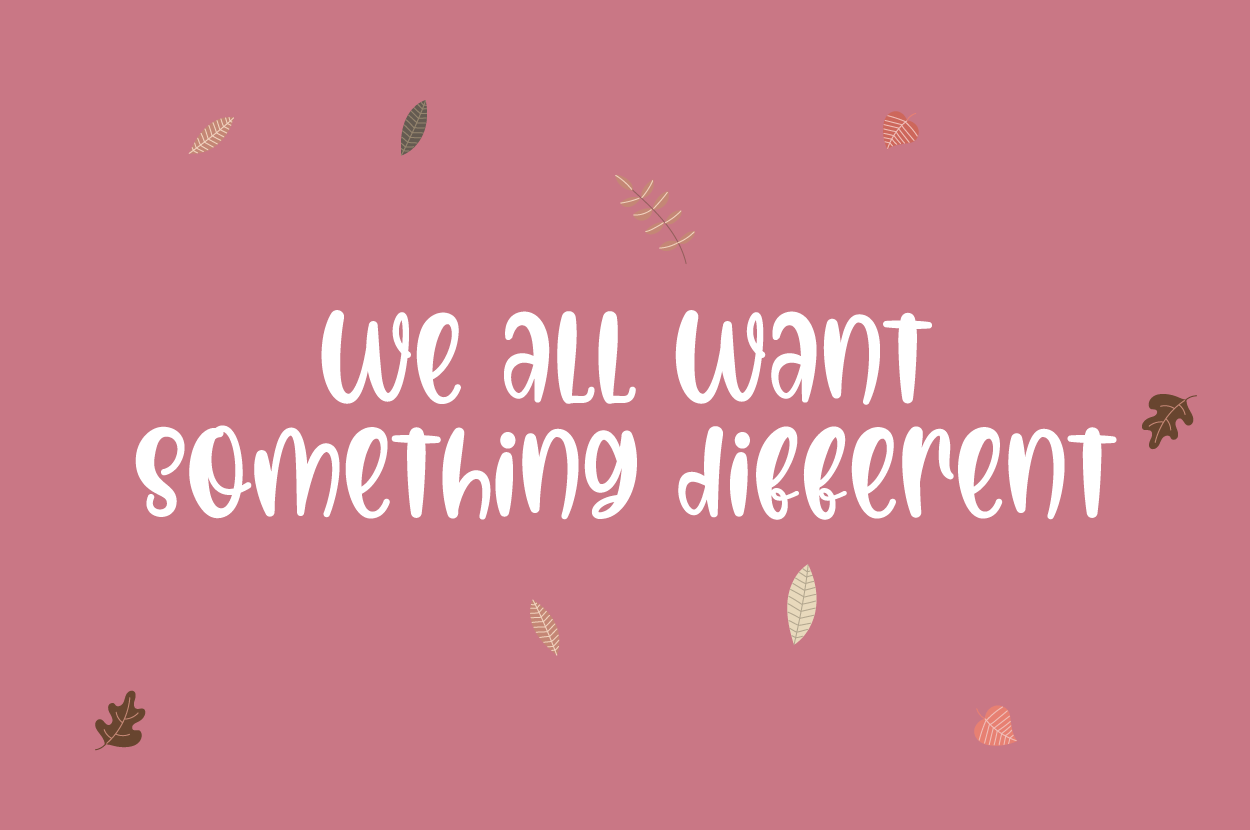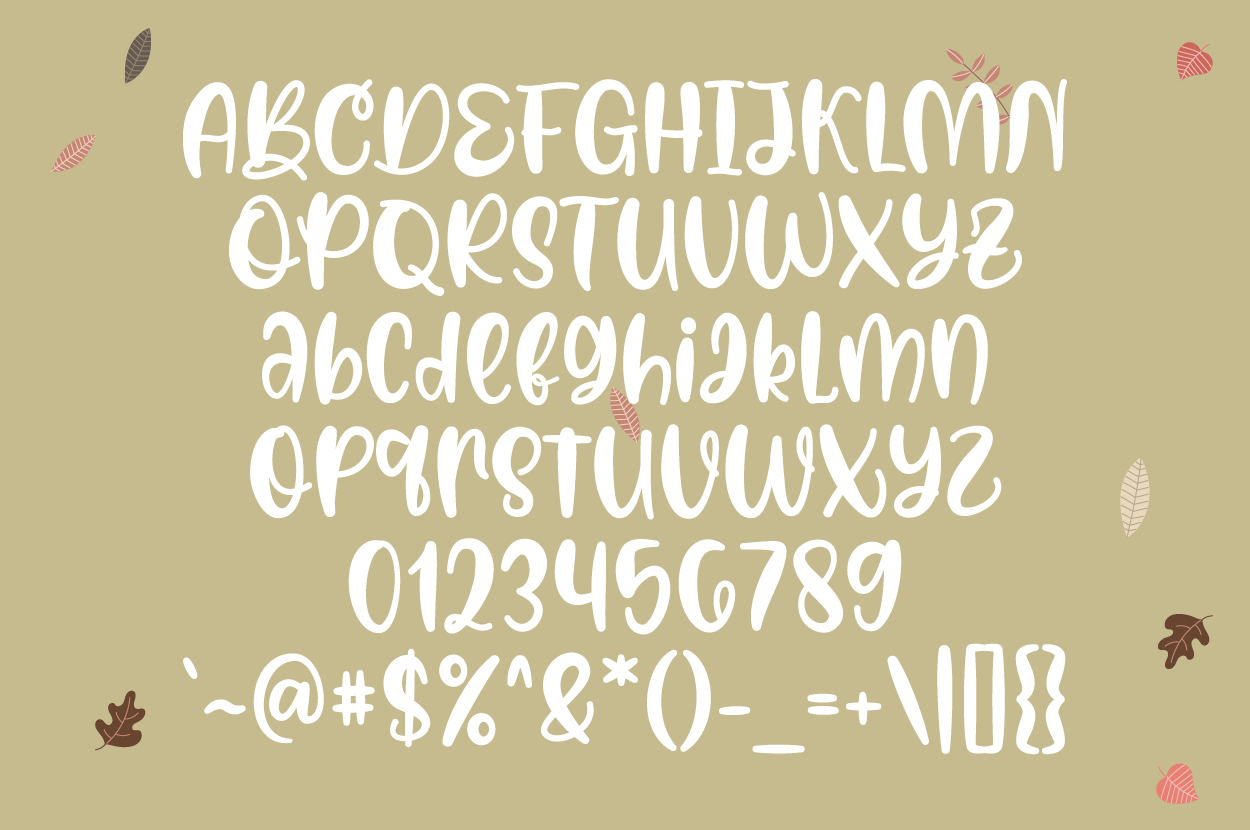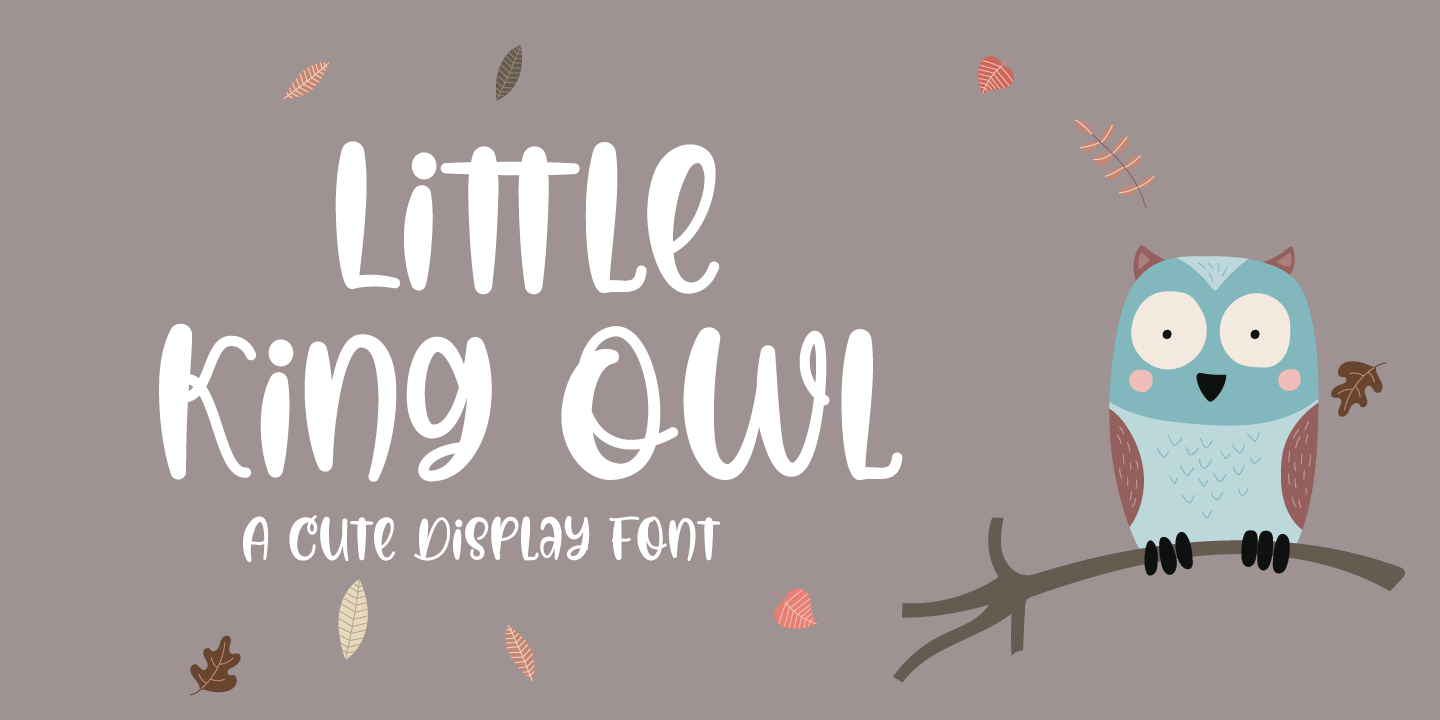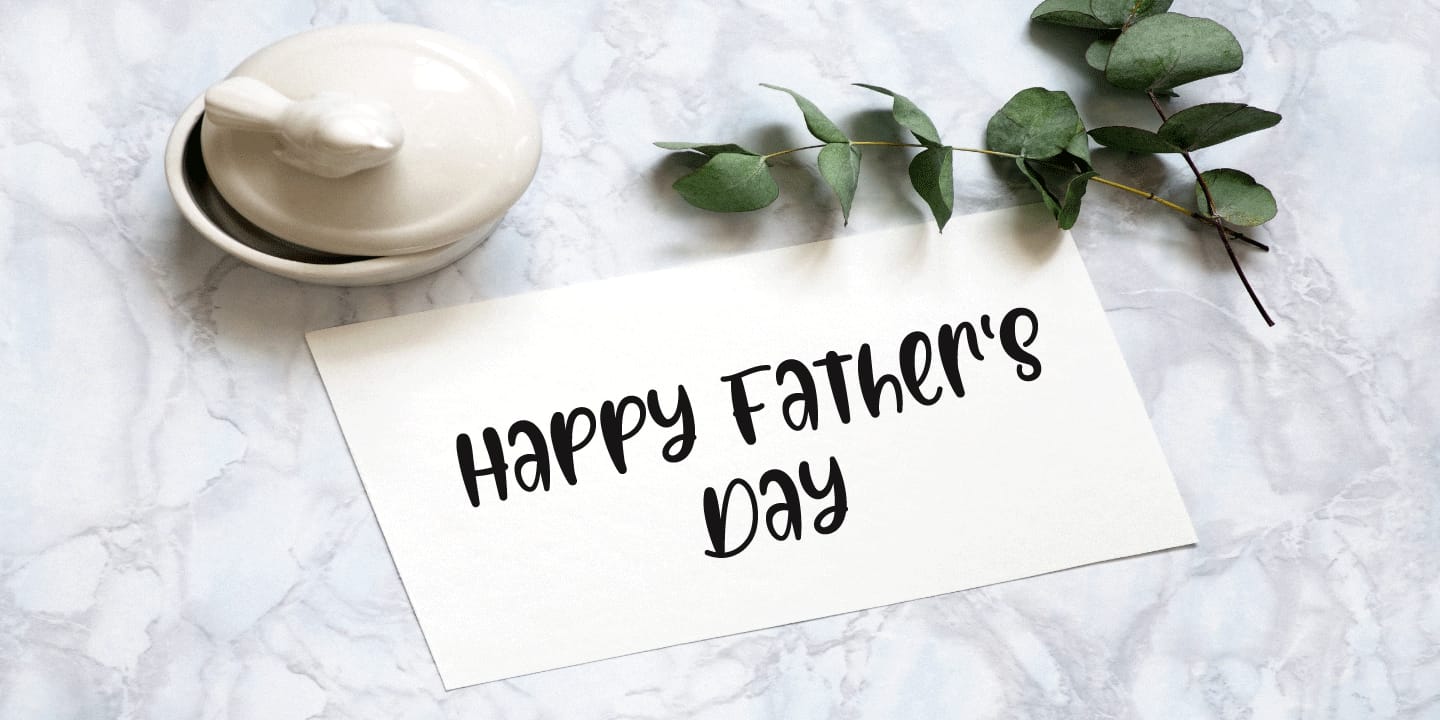
Little King Owl Font Cute
Little King Owl a new fresh & simple handwritten font style! So beautiful on invitation like greeting cards, branding materials, business cards, quotes, posters, and more!!